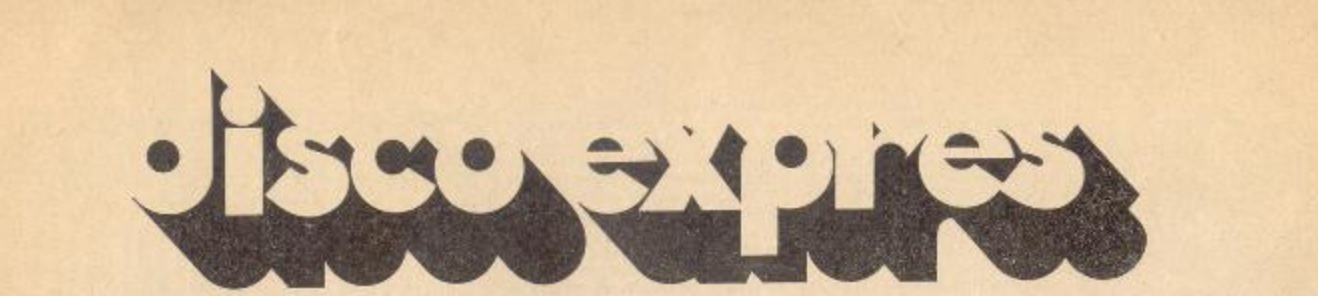
so you mean their logo
I've uploaded the logo iteration that I am interested in.
Yes, I do mean their logo.
The image I' ve uploaded dates drom 1974.
In spirit like Chwast Artone (Loose Caboose), but I think it is custom made. If you look at the covers it is always the same size and used a few times negative, but all of that would indicate a photostat original, which would also fit the time.